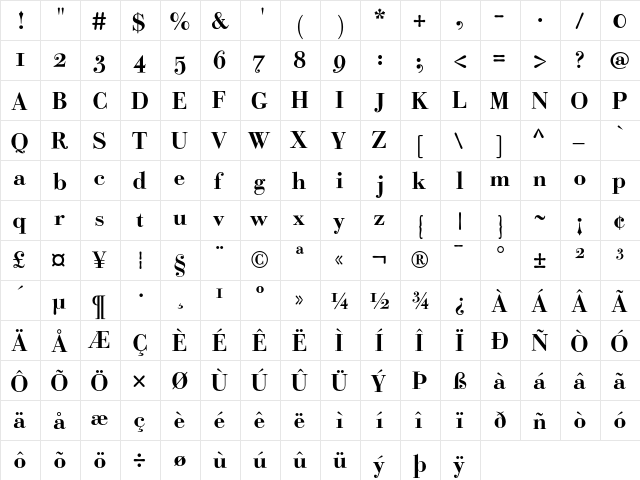
BodoniClassic AdBold
Design Context for BodoniClassic Typeface
BodoniClassic has the warm character of retro typography — evoking diners, record sleeves, and the golden age of print advertising. The heavy weight commands attention and anchors typographic hierarchies.
Perfect for vintage-inspired branding, retro packaging, nostalgia campaigns, and period-accurate editorial design.
Font Pairing: Combine BodoniClassic with a simple slab or neutral sans — period-accurate companions reinforce the vintage feel without competing for attention.
Pro Tip: Use BodoniClassic for headlines and pull quotes rather than body copy — its personality is best appreciated in short, focused bursts.